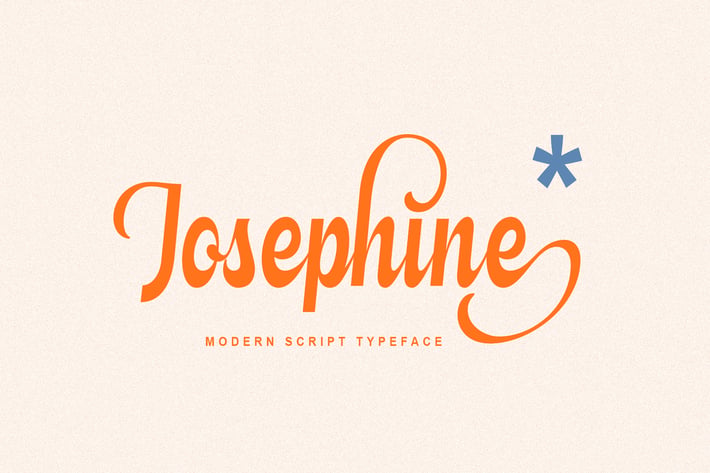
Modern Script Font
Josephine is a modern script typeface, it comes with smooth and clean line. Josephine has some alternates stylistic sets. Josephine would be perfect for branding, vintage posters, invitations, websites, mobile apps, and more.
Alternates Stylistic Set
Number and Punctuation